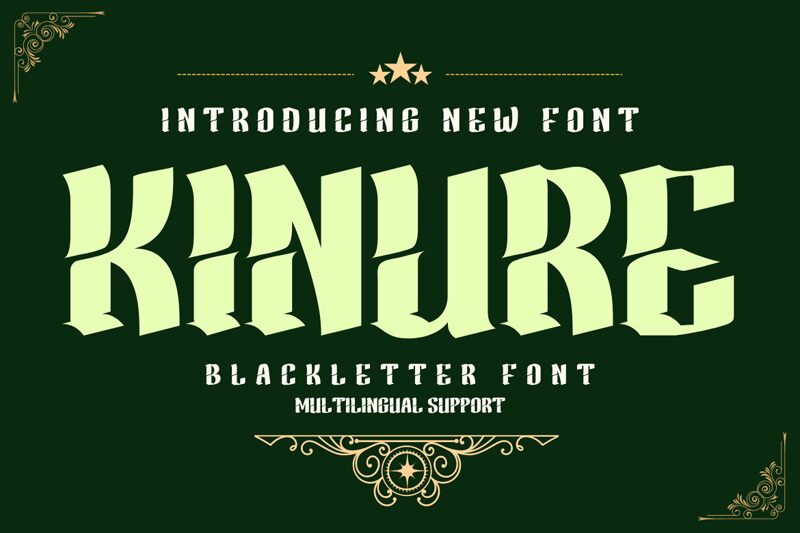
Look no further than KINURE from Blackletter for the perfect Gothic font! This modern, bold typeface with a semi-condensed width is ideal for a variety of projects.
Design stunning labels, retro graphics, stamps, badges, or create eye-catching Oktoberfest posters. With its gothic touch and professional-grade design, KINURE is versatile and ready to enhance your creative work. Choose from a range of beautiful shapes to find the perfect fit for your project. Whether you need a font for a logo, label, badge, or even for your latest music video or movie, KINURE Blackletter is the ultimate choice.
Embrace the power of Gothic design and make your visuals stand out with KINURE!